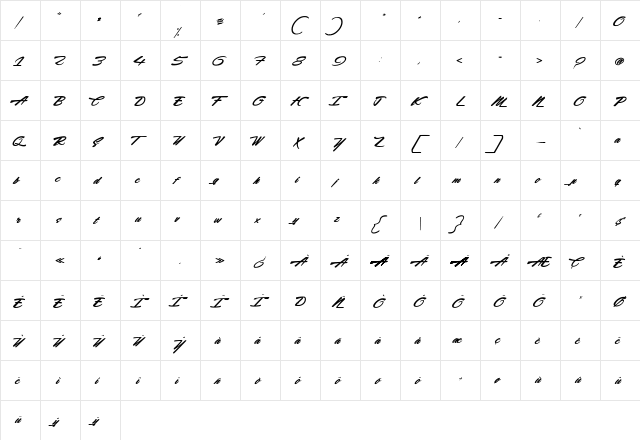
Acceleration & Reaction Regular
| Foundry | Cataleya Butcher |
| Designer | Cat.B |
Design Context for Acceleration & Reaction Typeface
Acceleration & Reaction is a composed and adaptable typeface that performs quietly and consistently across a wide range of design contexts.